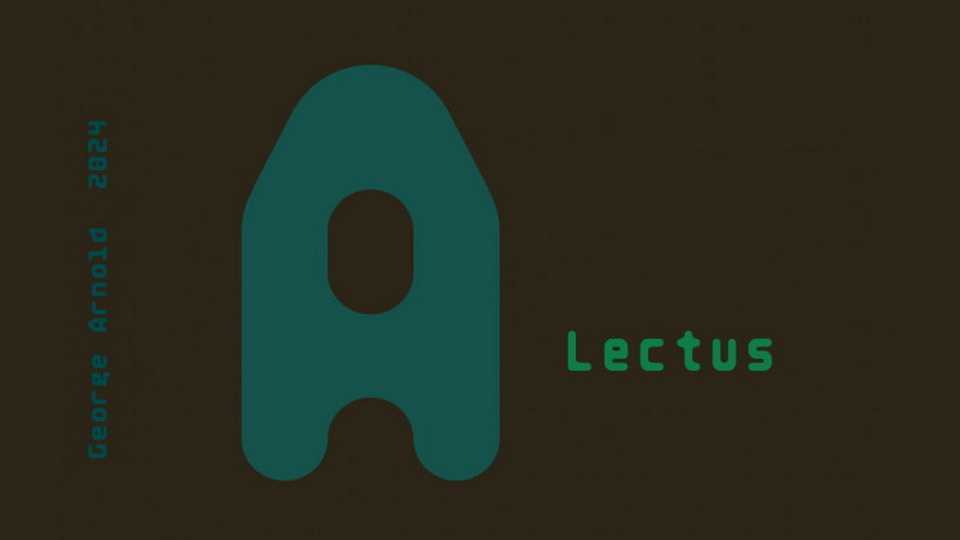
Download Lectus font, a modern geometric sans serif typeface that exemplifies sleekness and precision with its smooth shapes. It features clean, streamlined letterforms crafted from harmonious curves and straight lines.
Designer: George Arnold